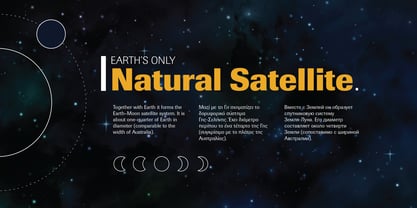
Imago W1G
Imago® W1G
von Berthold
Imago W1G Font Familie wurde entworfen von Günter Gerhard Lange und herausgegeben von Berthold. Imago W1G enthält 10 Stile und Optionen für Familienpakete.
Developing a new sans serif clearly distinguishable from existing sans serifs is a difficult task. Günter Gerhard Lange accomplished that with Imago, introduced by Berthold in 1982. It is narrower in proportion than others, has a square-like shape to its curves and numerals that are slightly shorter than its cap height. Particular attention was given to the expression of each individual character and great care was taken to keep them open and clear even in the smallest of sizes and boldest of weights. Under the direction of Günter Gerhard Lange, bold and bold italic weights were added in 2000, making Imago an extremely well-balanced family with universal applicability. Imago is especially useful for office memorandum, and scanning and faxing documents.
Designer: Günter Gerhard Lange
Herausgeber: Berthold
Foundry: Berthold
Eigentümer des Designs: Berthold
The H. Berthold typefoundry, renowned for crafting high-quality typefaces, was founded in 1858 by Hermann Berthold in Berlin. By 1918 the foundry had become the largest in the world, with offices in Stuttgart, St. Petersburg, Leipzig, Riga, Budapest and Vienna. To complement its proprietary typesetting equipment business activities, Berthold developed high quality typefaces. The H. Berthold foundry’s most celebrated family of typefaces is arguably Akzidenz-Grotesk (released 1896), known as the mother of all sans serifs.The Premium foundry page can be viewed Here.